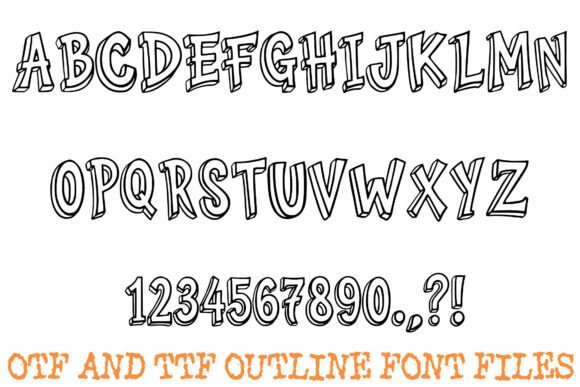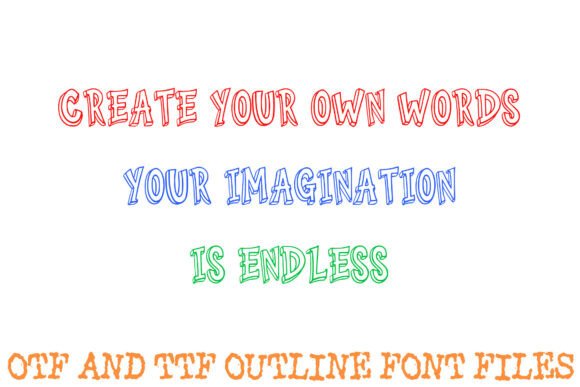
Bring Your Designs to Life with the Cartoon Chunky Font
Have you ever stared at a blank page, wondering how to bring your creative vision to life? Maybe you’re designing a logo for a new kids’ brand, or crafting stickers for a digital planner. Whatever your project, the key to capturing attention is to make it pop – and that’s exactly what the Cartoon Chunky Font does.
This playful, hand-drawn font is designed to add a dynamic, animated vibe to any project. Its bold outlines and clean dimensional shadows make it a top choice for children’s branding, classroom decor, and high-impact designs. Whether you’re working on a logo, apparel design, or YouTube thumbnail, the Cartoon Chunky Font offers a professional yet whimsical aesthetic that sets you apart from the crowd.
- Unique Characteristics: Distinctive chunky style with bold lines and rounded edges, giving it a playful and cartoonish feel
Designer Review: Cartoon Chunky Font
I recently had the chance to play around with the Cartoon Chunky Font, and I’ve got some honest thoughts to share. Here’s the good, the bad, and the overall impression.
- Fun and playful vibe: This font is perfect for projects that need a lighthearted, whimsical feel. It’s great for children’s books, cartoons, or any other project that requires a touch of humor.
- Easy to read: Despite its chunky appearance, the font is surprisingly legible, making it suitable for body text or headings.
- Customization options: The font comes with various weights, styles, and ligatures, giving you plenty of flexibility to tailor it to your project’s needs.
- Not ideal for formal projects: If you’re working on a serious, professional project, this font might not be the best choice. Its playful nature might clash with the tone you’re trying to convey.
- May not work well at small sizes: The font’s chunky design can make it difficult to read when scaled down, so be mindful of its usage in smaller contexts.
While Cartoon Chunky Font has its limitations, it’s a great addition to any designer’s toolkit. Its versatility and customization options make it perfect for projects that require a touch of humor or whimsy. Just be sure to use it wisely and balance it with more serious elements to avoid visual overload.
For the most effective use of the Cartoon Chunky Font, use it in bold and bright colors to create eye-catching headlines and titles. It’s perfect for children’s book covers, cartoon-style posters, and playful social media graphics.